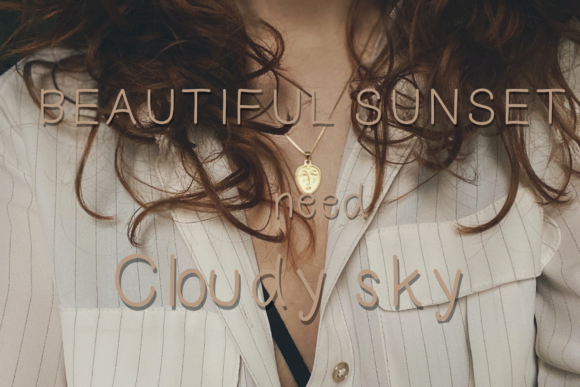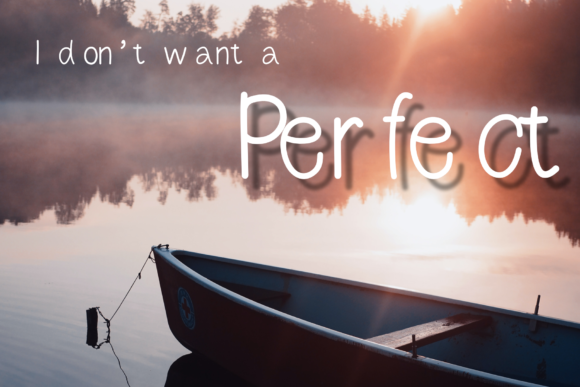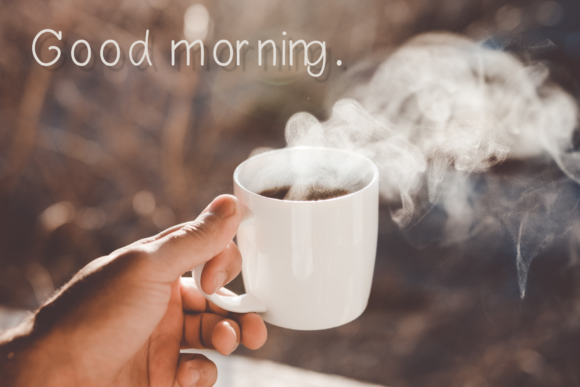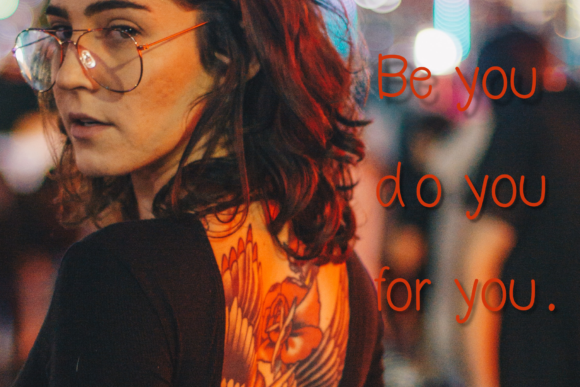
The Sweet Spot: Discovering Dancings Font
I still remember the design project that led me to Dancings Font. I was working on a whimsical branding campaign for a new bakery, and I was struggling to find the perfect handwritten font that felt both friendly and elegant. The client wanted something that would make their customers feel like they were walking into a warm hug. After hours of scrolling through font libraries, I stumbled upon Dancings Font, and it was love at first sight! ✨
So, what makes Dancings Font so special? Let’s dive into the good stuff and a few quirks I’ve discovered.
- ✨ Sweet and Friendly Vibe: Dancings Font has a natural, hand-crafted feel that instantly adds warmth to any design.
- ✅ Versatility: Its unique style somehow fits a wide range of design projects, from kid-friendly crafts to more sophisticated branding.
- 🎨 OpenType Features: Dancings Font comes with a range of OpenType features, including stylistic alternates and glyphs, which give you plenty of creative options.
- ⚠️ Legibility at Small Sizes: Like many handwritten fonts, Dancings can get a bit fuzzy at very small sizes. It’s best used at 18px or larger for optimal readability.
- 🤔 Pairing with Other Fonts: While Dancings is incredibly versatile, it can be a bit challenging to pair with other fonts. Look for fonts with a similar hand-crafted feel or bold, geometric fonts for nice contrast.
The Story Behind Dancings Font
While the origins of Dancings Font might be shrouded in mystery, it’s easy to imagine a designer with a passion for handwriting and dance crafting this font. Perhaps they wanted to capture the joyful, carefree spirit of dancing in a bottle – or rather, in a font! 💃
Q: What makes Dancings Font unique?
A: Dancings Font stands out with its sweet, friendly vibe and natural handwritten style, making it perfect for a wide range of creative projects.
Q: Is Dancings Font suitable for body text?
A: While Dancings Font is beautiful, it’s best used for headings or short paragraphs due to its decorative nature. For body text, a more traditional font might be more readable.